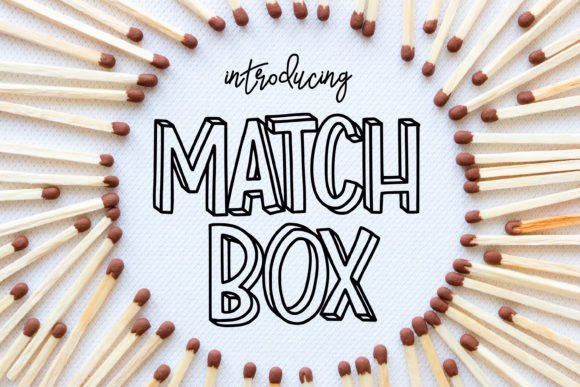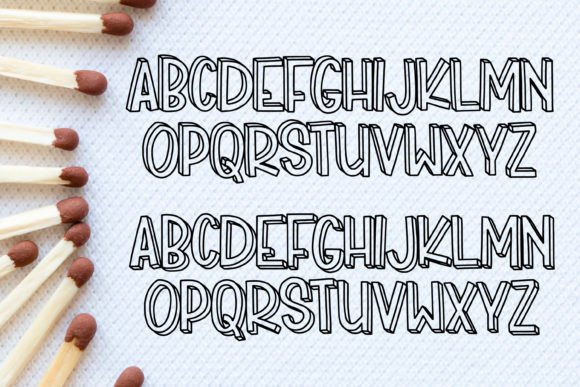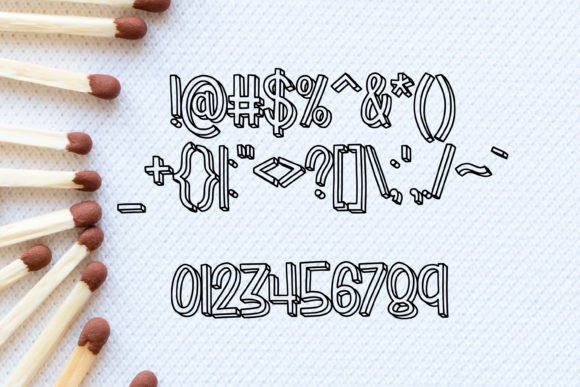
Match Box Font: A Playful 3D Display Font for Eye-Catching Headlines!
About the Match Box Font
We are excited to introduce Match Box Font, a must-have typeface for any serious designer. Introducing “Match Box,” a bold and energetic 3D-style display font designed to make your projects stand out! This playful and eye-catching font features strong lines and dynamic shapes, perfect for headlines, logos, posters, and other creative projects. Whether you’re designing for print or digital platforms, Match Box will give your work an extra spark of fun and creativity. With an extensive range of punctuation, numbers, and multilingual support, it’s a versatile choice for any designer looking to create impactful designs. Light up your design projects with Match Box today!
Match Box Font Usage Examples
Match Box Font Example